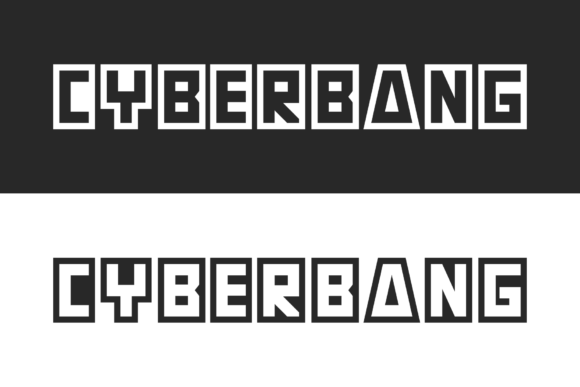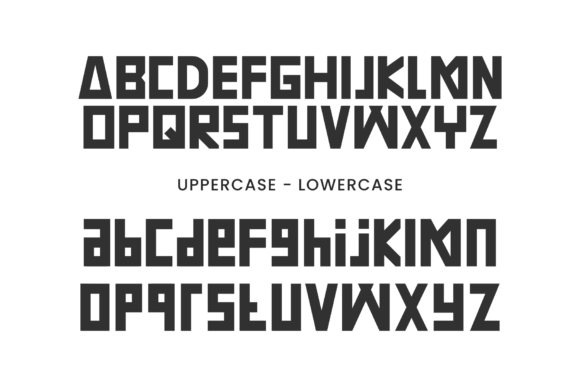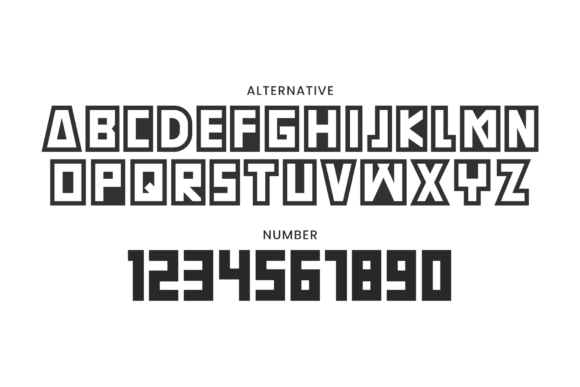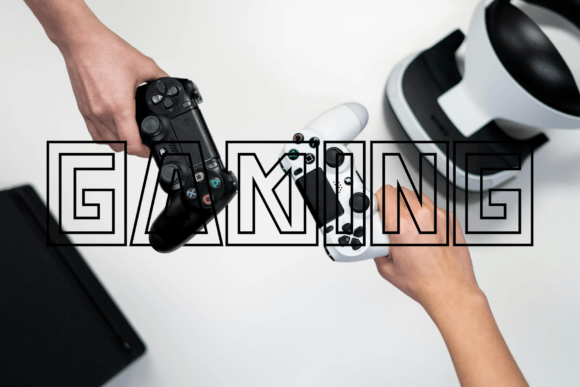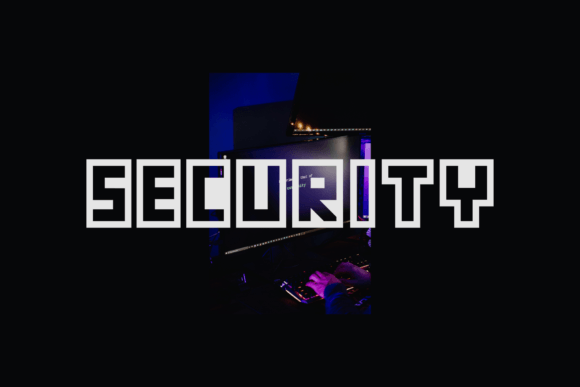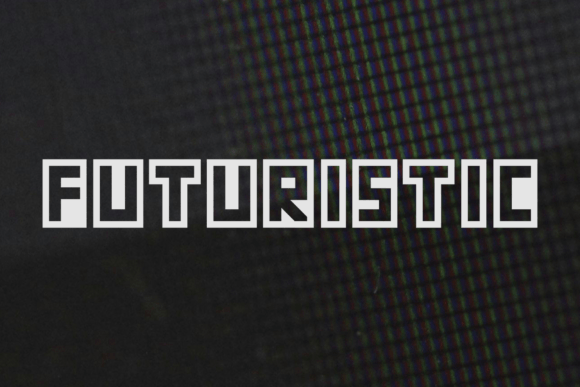
Unlock the Future of Typography with Cyberbang Font
Imagine you’re working on a project that needs to transport users to a world of neon lights, high-tech gadgets, and futuristic landscapes. As you scroll through your design options, you know you need a font that can keep pace with your vision. That’s where the Cyberbang Font comes in – a cutting-edge sans-serif font designed to capture the essence of cyberpunk aesthetics.
With its bold, dynamic characters and symmetrical precision, the Cyberbang Font is the perfect choice for designers who want to elevate their projects to the next level. Whether you’re creating a futuristic video game, a sci-fi novel cover, or a cutting-edge tech website, this font is sure to make a statement. The meticulous craftsmanship of each letter embodies the sleek, tech-driven spirit of tomorrow, making it an invaluable asset for any designer looking to push the boundaries of visual design.
Cyberbang Font Key Features
- Unique Characteristics: Cyberbang Font features a futuristic and edgy design with a blend of digital and analog elements, making it ideal for science fiction, technology, and gaming-related projects.
- Character Set: The font includes a wide range of characters, including uppercase and lowercase letters, numbers, punctuation marks, and special symbols, ensuring that users have everything they need for their projects.
- Font Weight and Style: Cyberbang Font comes in multiple weights and styles, including regular, bold, italic, and bold italic, allowing users to customize the font to suit their design needs.
Cyberbang Font Review
As a designer, I was excited to dive into the Cyberbang Font and see what it had to offer. Overall, I found it to be a visually striking font that could add a touch of futurism to any project.
- ✨ The font’s futuristic aesthetic is well-executed, making it perfect for sci-fi or tech-related projects.
- ✨ The font is highly customizable, with a wide range of options for adjusting size, color, and style.
- ✨ The font is also highly legible, even at smaller sizes, which is essential for any font intended for digital use.
- ⚠️ The font can feel a bit over-the-top or gimmicky at times, which may not be suitable for more conservative or traditional projects.
- ⚠️ The font’s futuristic aesthetic can also feel a bit dated, especially in comparison to more modern or minimalist fonts.
- ⚠️ The font’s customization options can also make it feel overwhelming to use, especially for designers who prefer a more streamlined design process.
Overall, I would recommend the Cyberbang Font to designers who are looking for a bold, futuristic font to add some excitement to their projects. However, it may not be the best choice for designers who prefer a more subtle or traditional approach.
Tips for Getting the Most Out of Cyberbang Font
For best results, use the Cyberbang Font in bold or italic styles to add emphasis to your text.
Experiment with different font sizes and colors to create a visually appealing design.
The Cyberbang Font is ideal for:
- Creating futuristic and high-tech designs.
- Designing video game or app interfaces.
- Adding a cyberpunk or sci-fi feel to your design.
Alternatives to Cyberbang Font